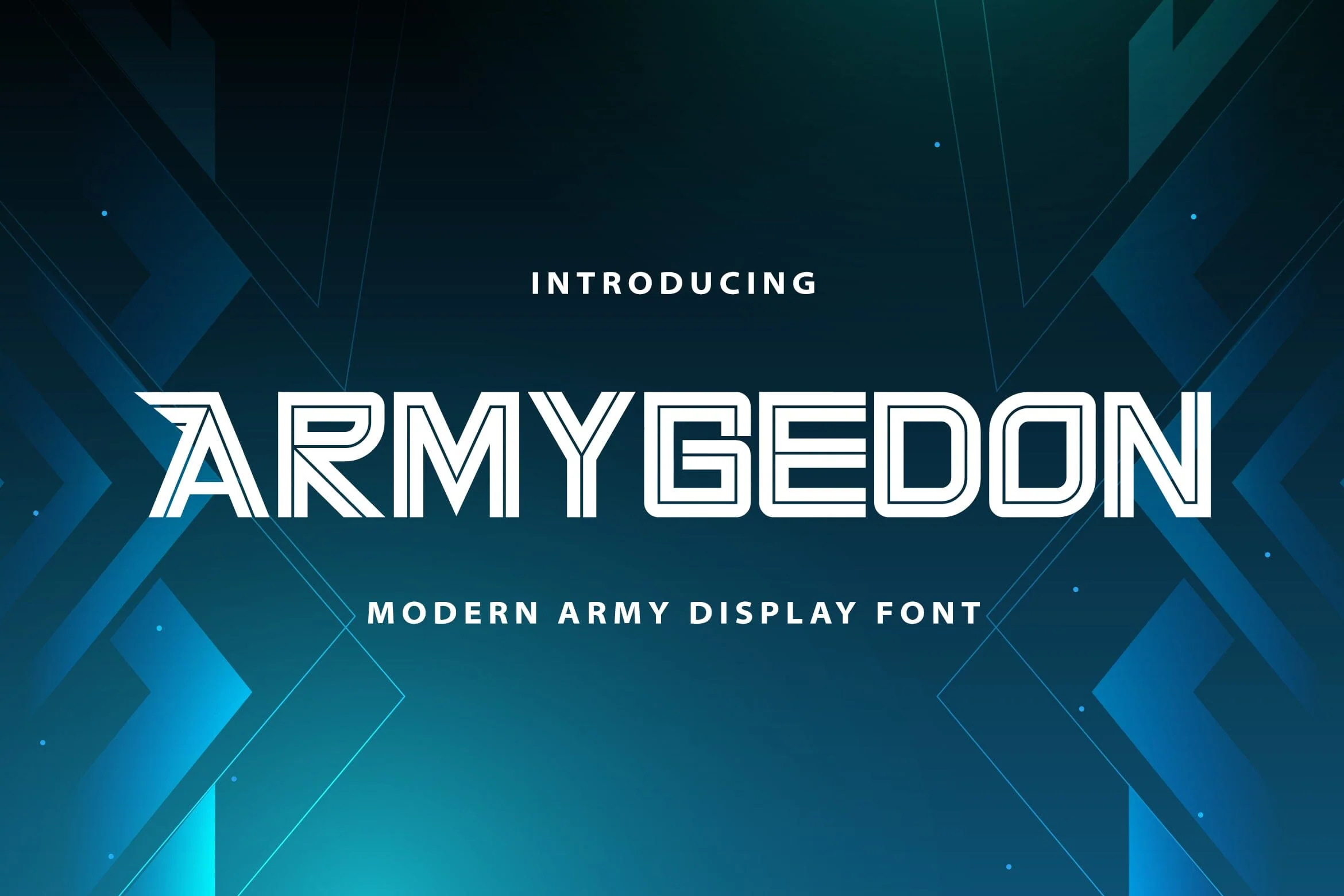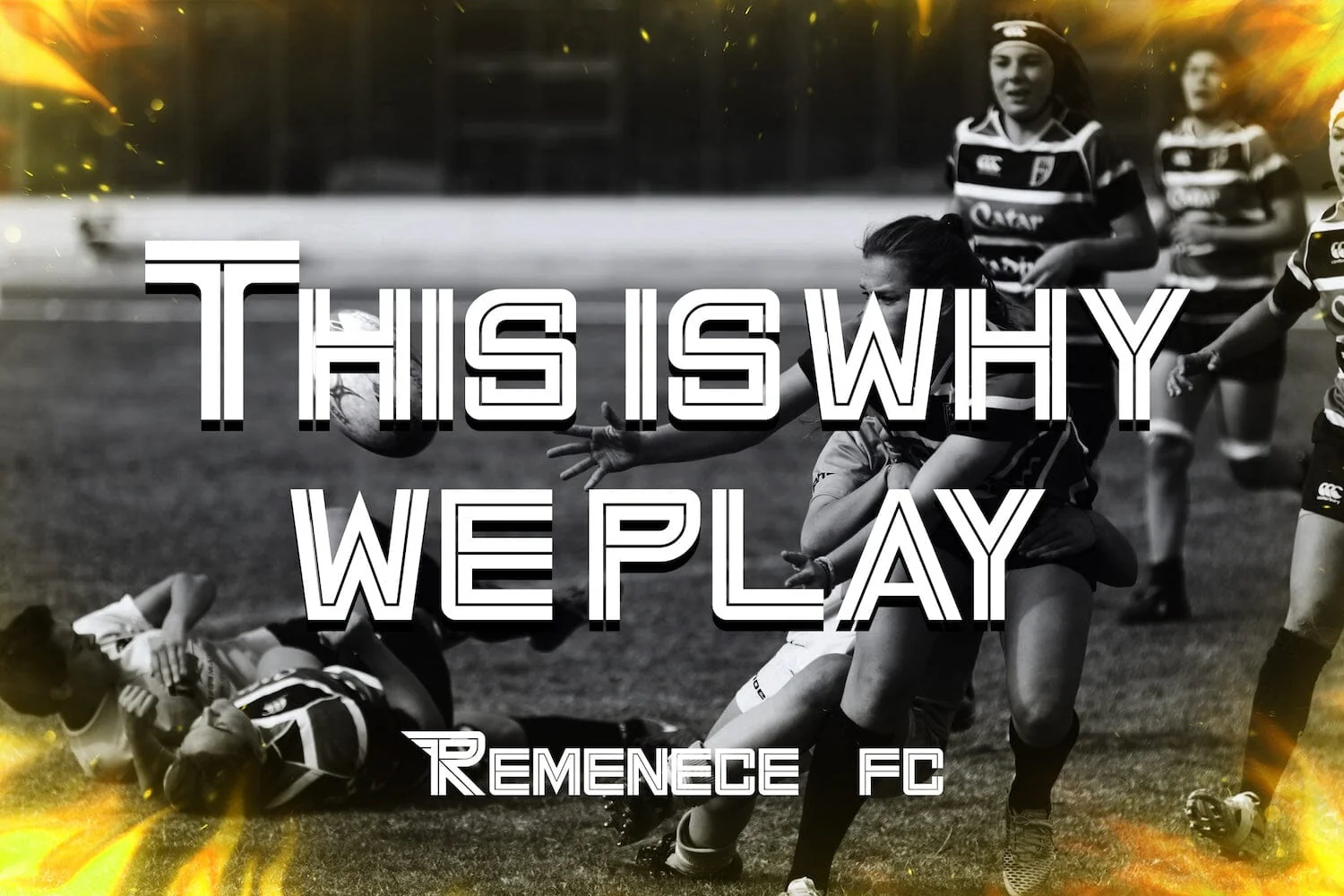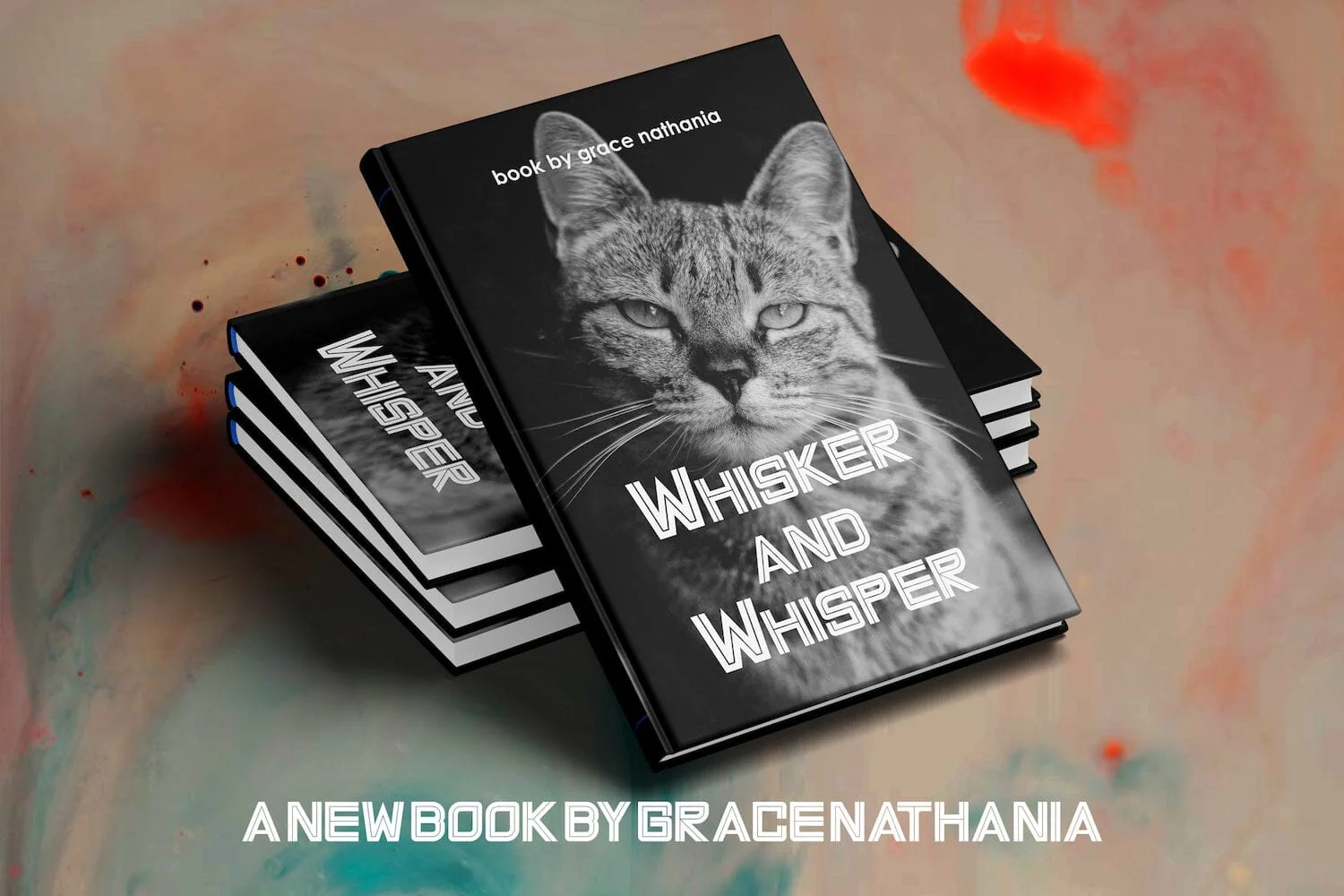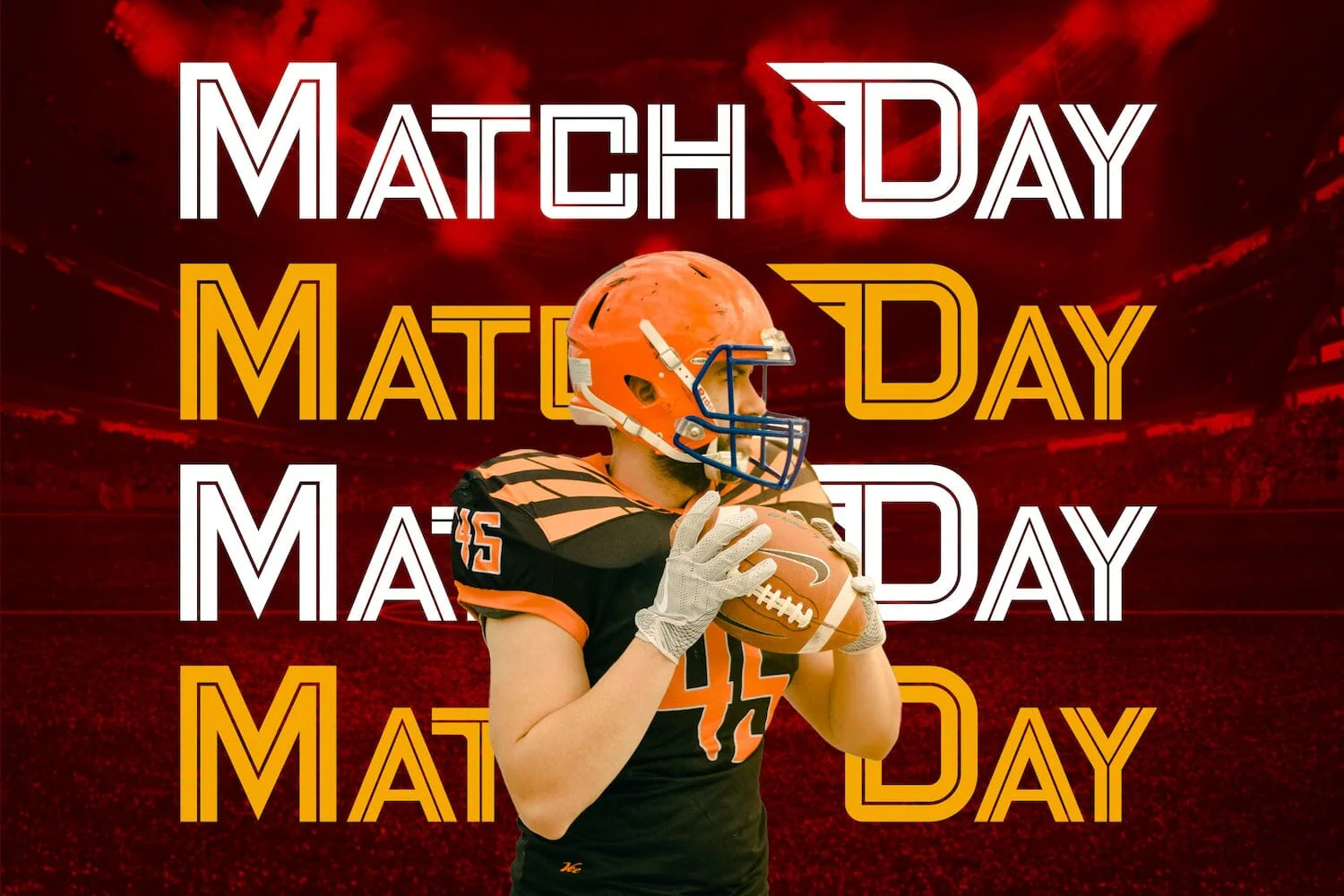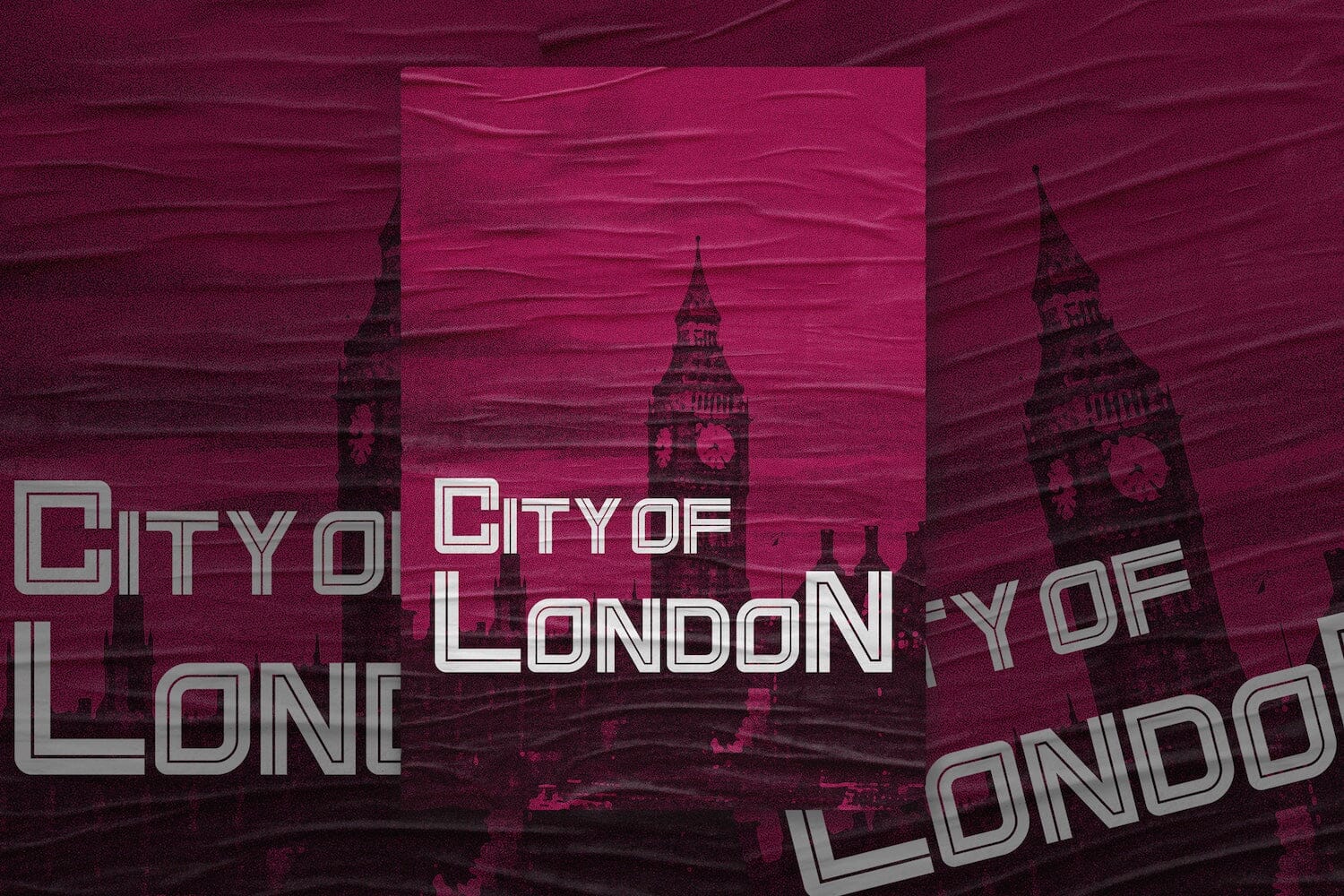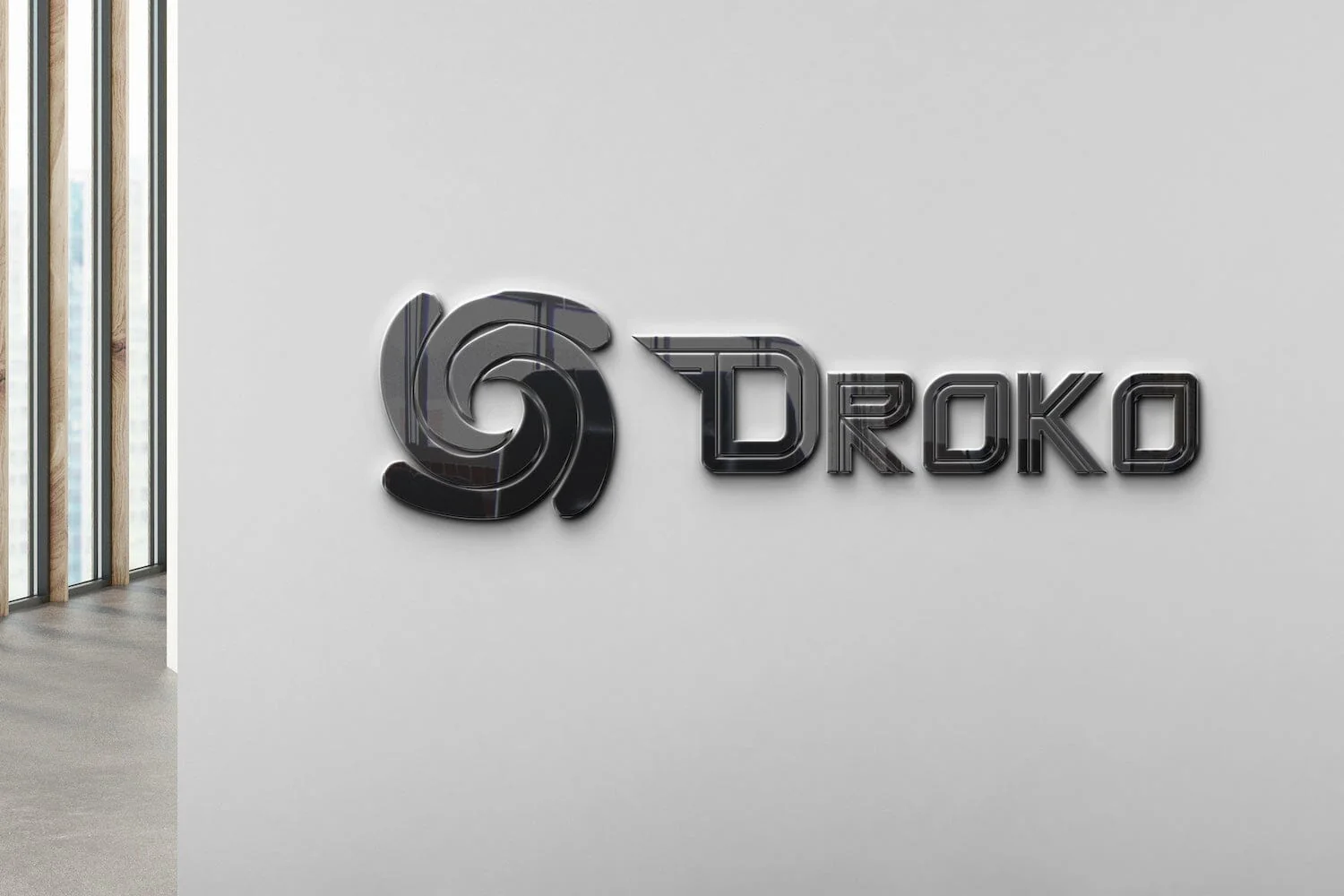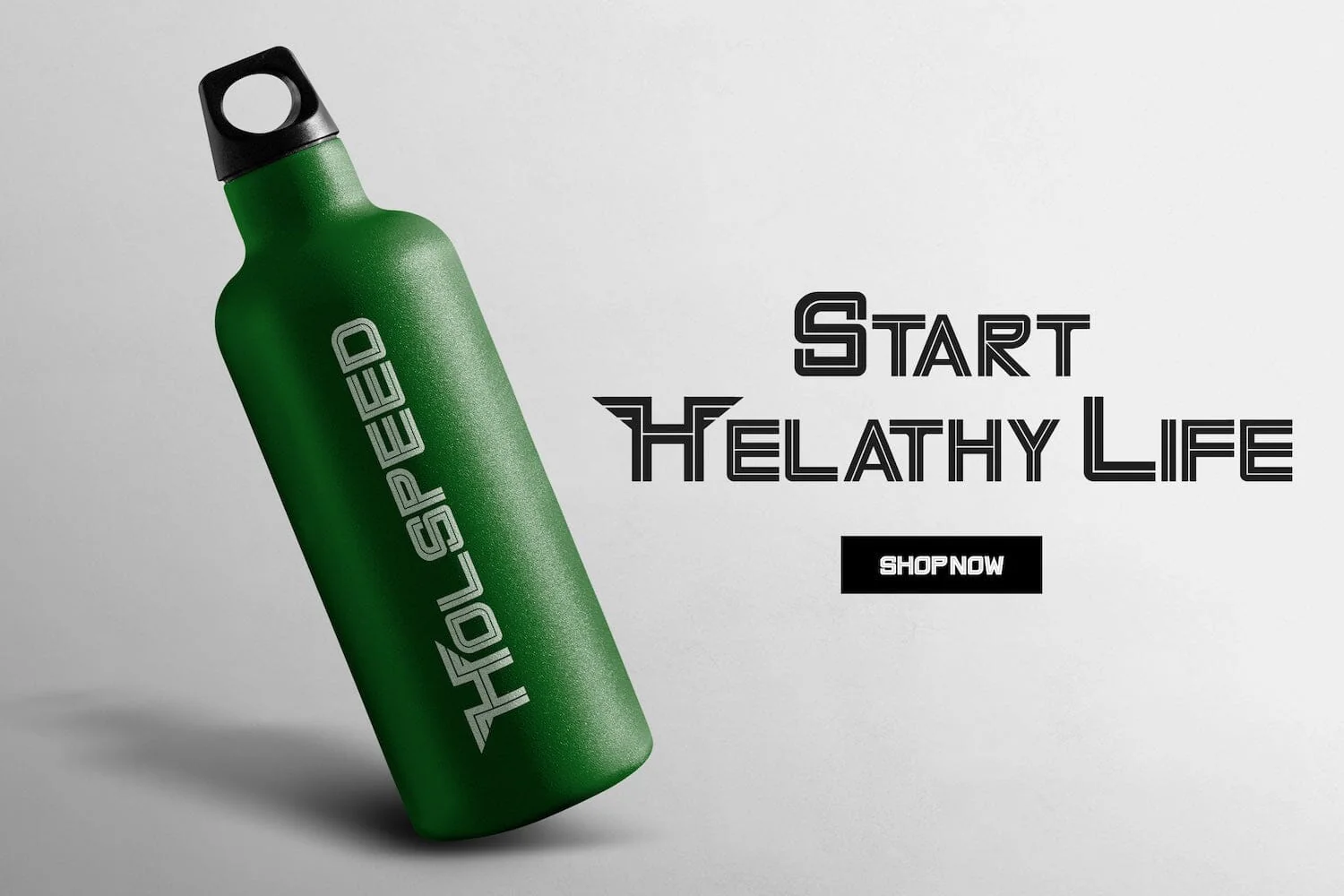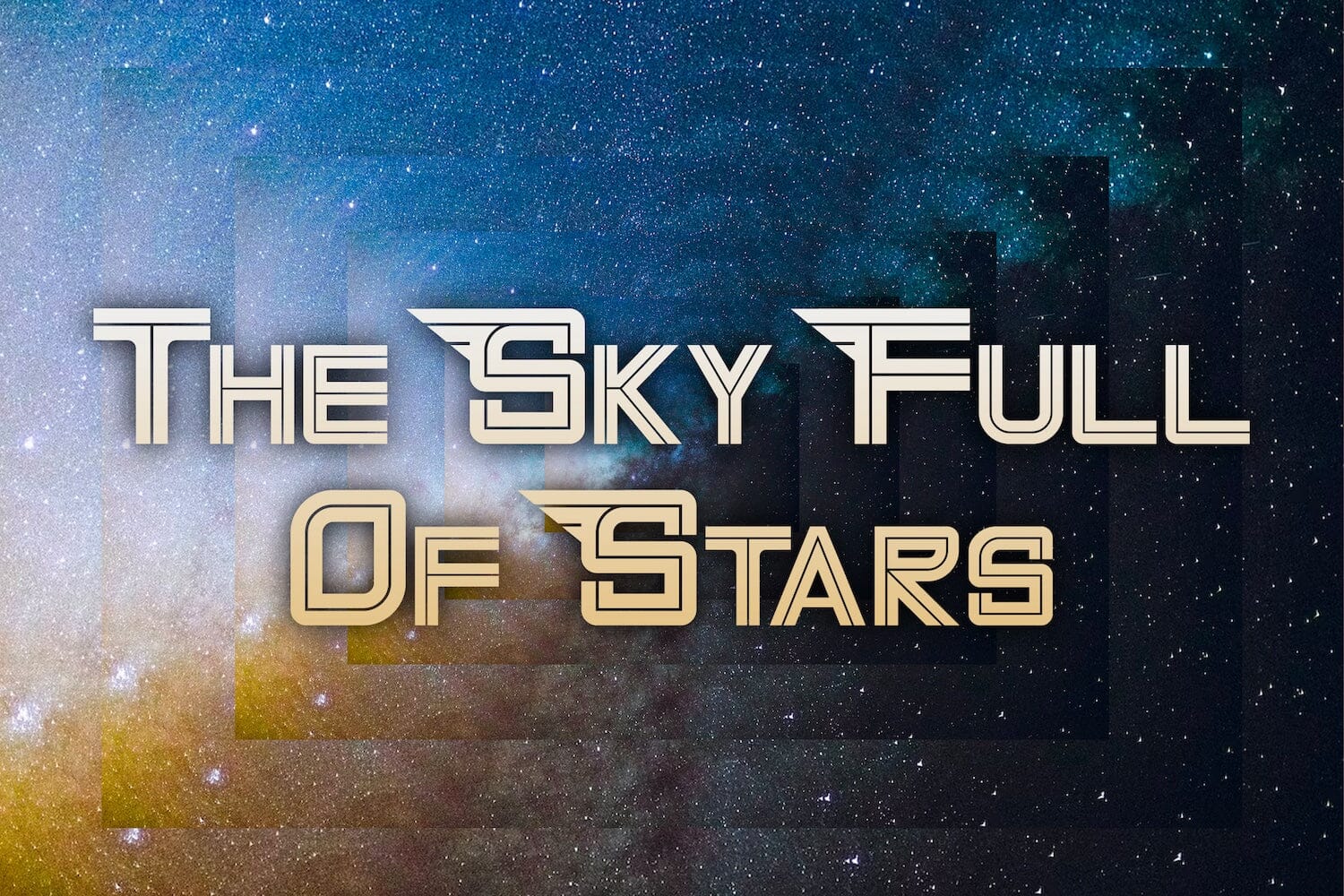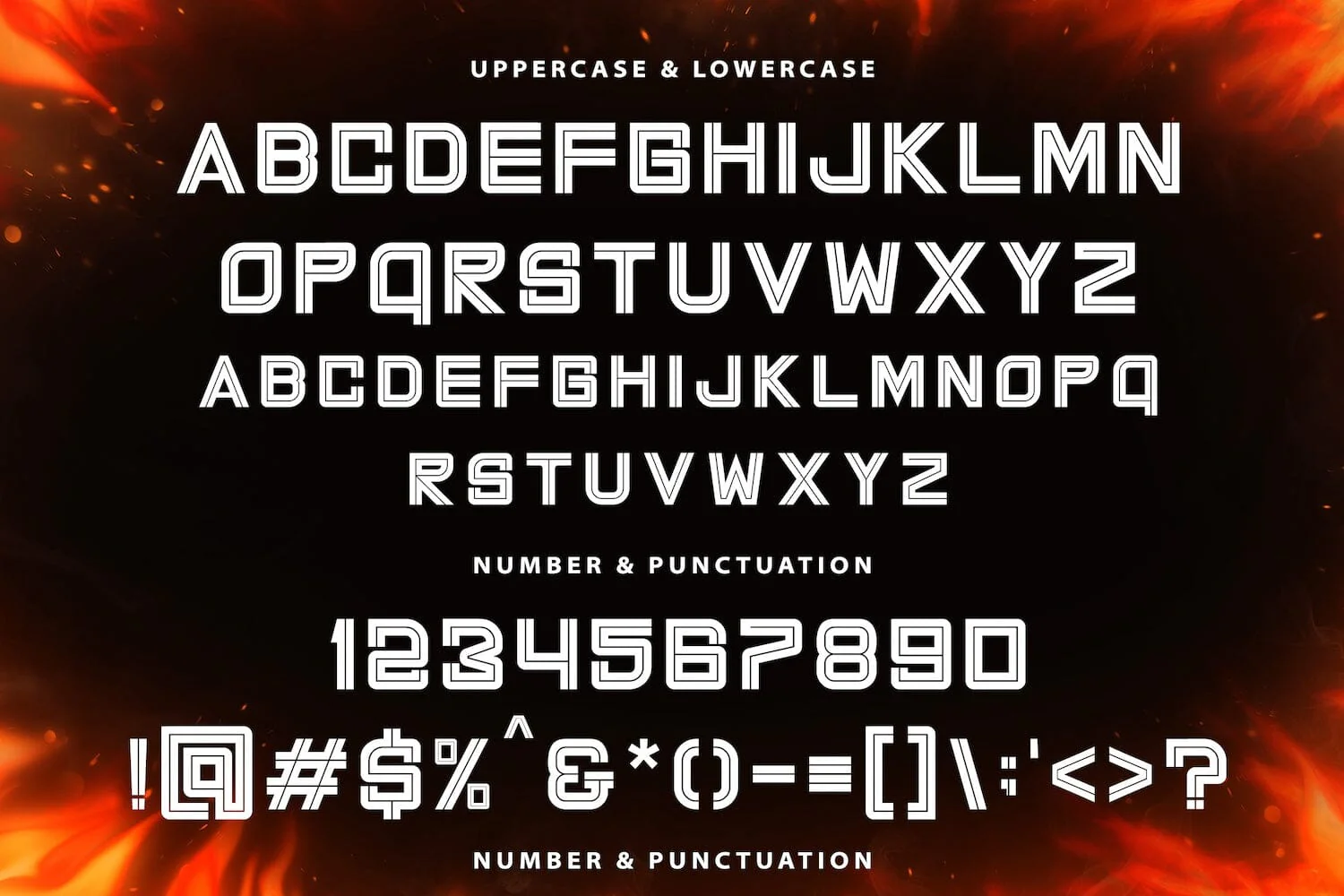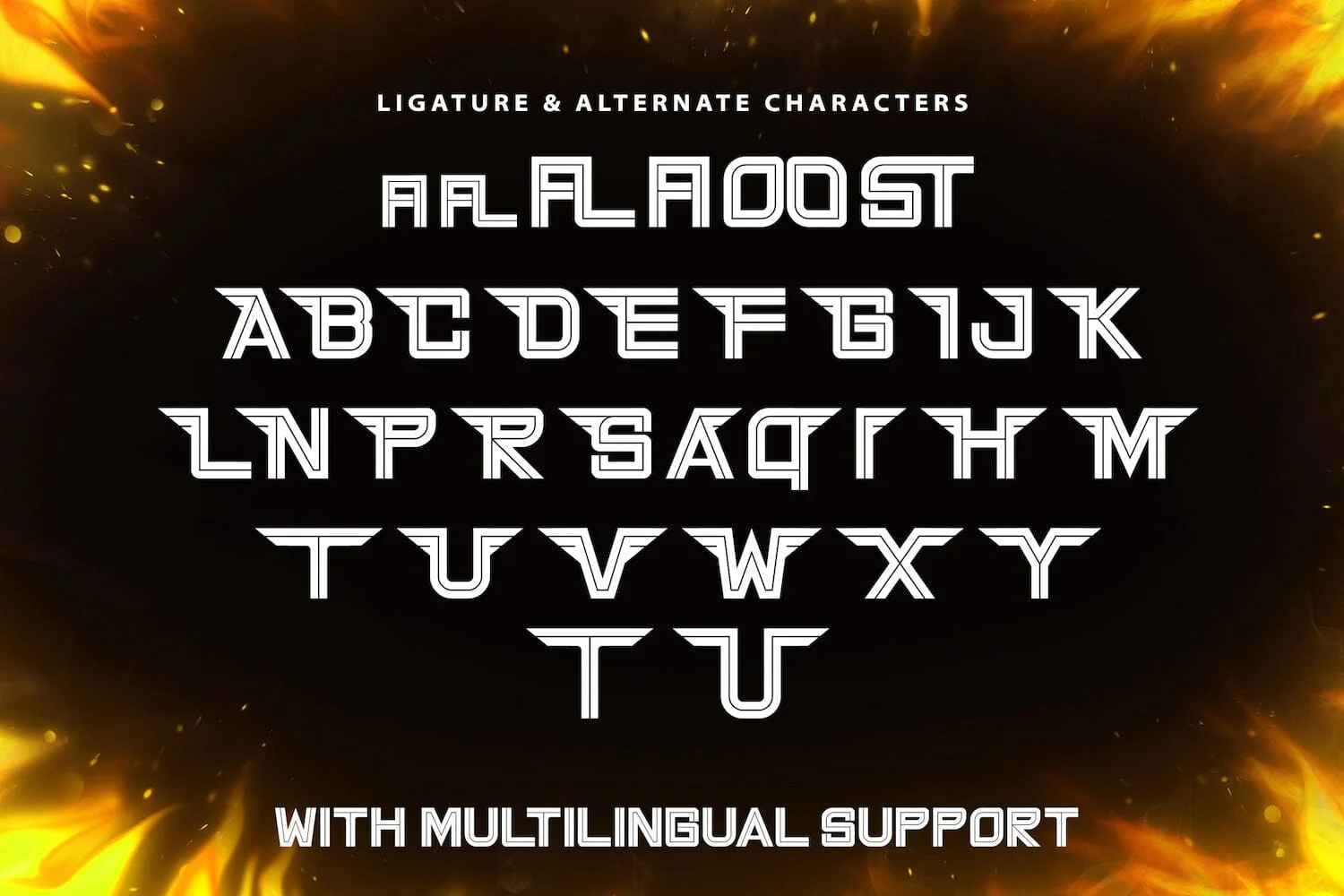
Armygedon - Modern Display Font
Introducing Armygedon - Modern Display Font
Armygedon is a modern futuristic sans font with a bold army feel. It will add a contemporary update to any design project. On top of everything, it has a techno feel to it, making it ideal for titles, subtitles and UI.
Introducing Armygedon - Modern Display Font
Armygedon is a modern futuristic sans font with a bold army feel. It will add a contemporary update to any design project. On top of everything, it has a techno feel to it, making it ideal for titles, subtitles and UI.